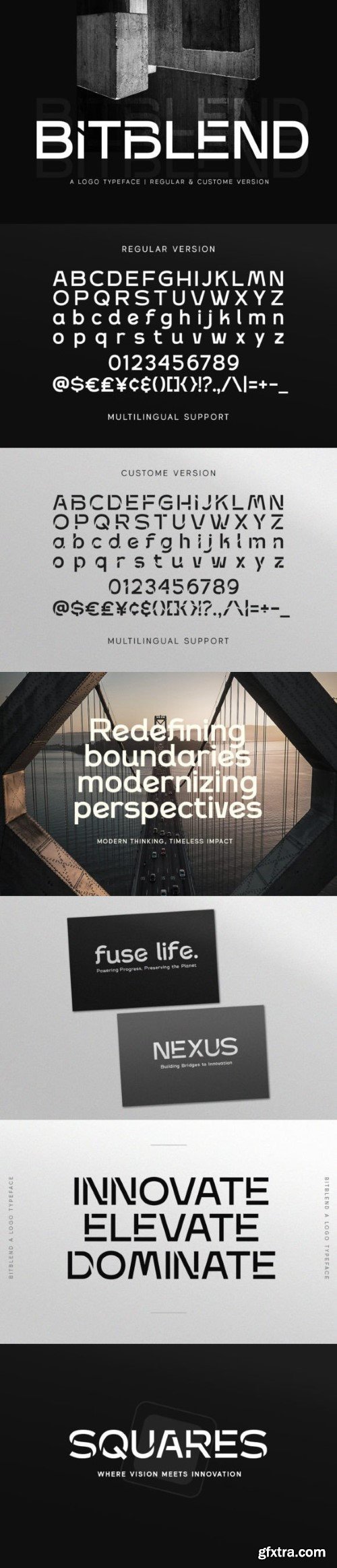
Bitblend Font
Bitblend is a smooth sans-serif font that embodies modern minimalism with a hint of elegance. Its crisp lines and balanced letterforms produce a refined and adaptable aesthetic. Perfect for projects requiring clarity and modern sophistication, Bitblend gives a smooth, sleek look to your designs.